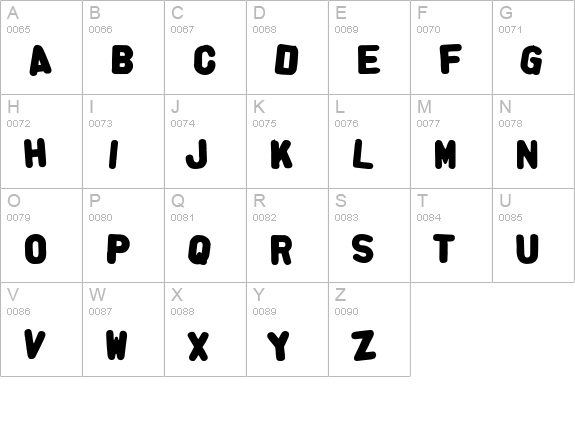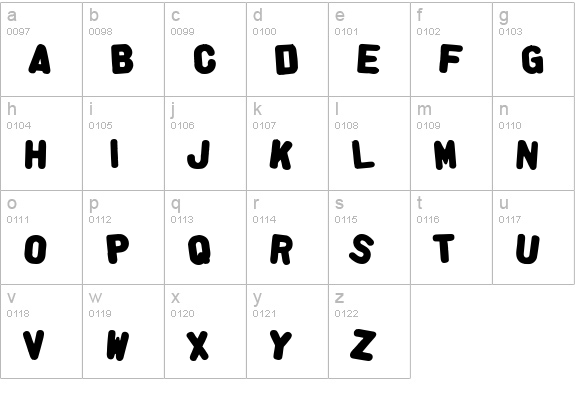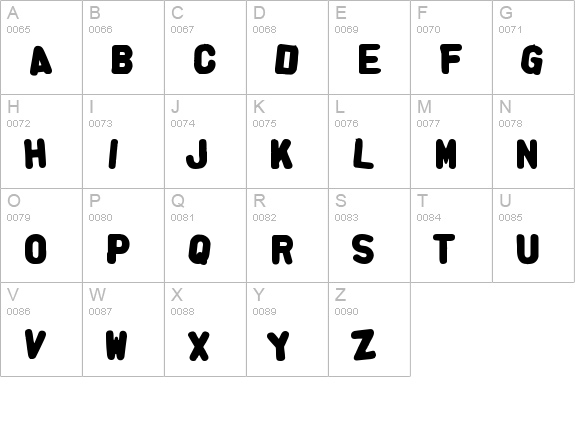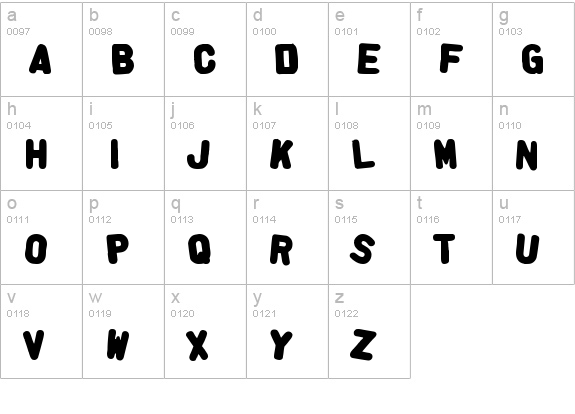
AlphaFridgeMagnetsAllCap Font Details
AlphaFridgeMagnetsAllCap font is a fun and playful display font that will bring a touch of whimsy to your design projects. With its bold, uppercase letters resembling classic fridge magnets, this font is perfect for creating eye-catching headlines, posters, and invitations. The font is freely available to download at FontsMarket.com, making it easy to add a unique and charming element to your designs. Add some character to your next project with AlphaFridgeMagnetsAllCap font!